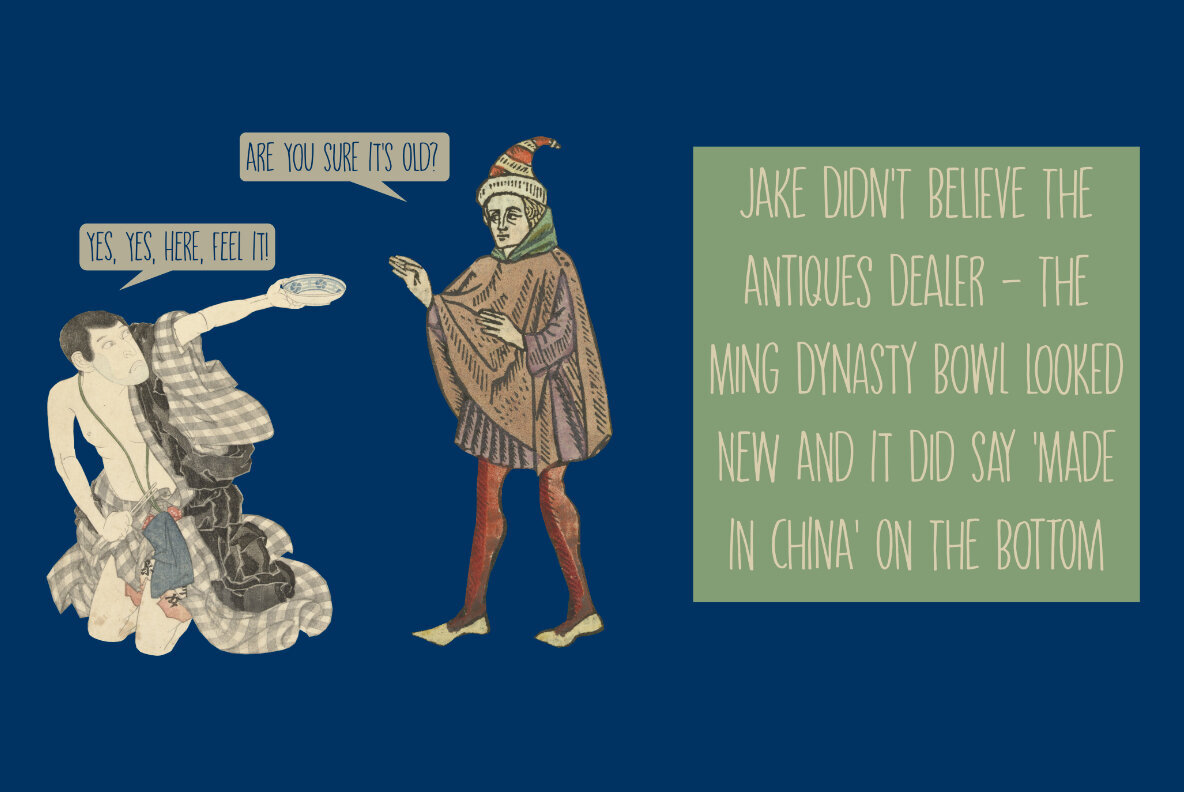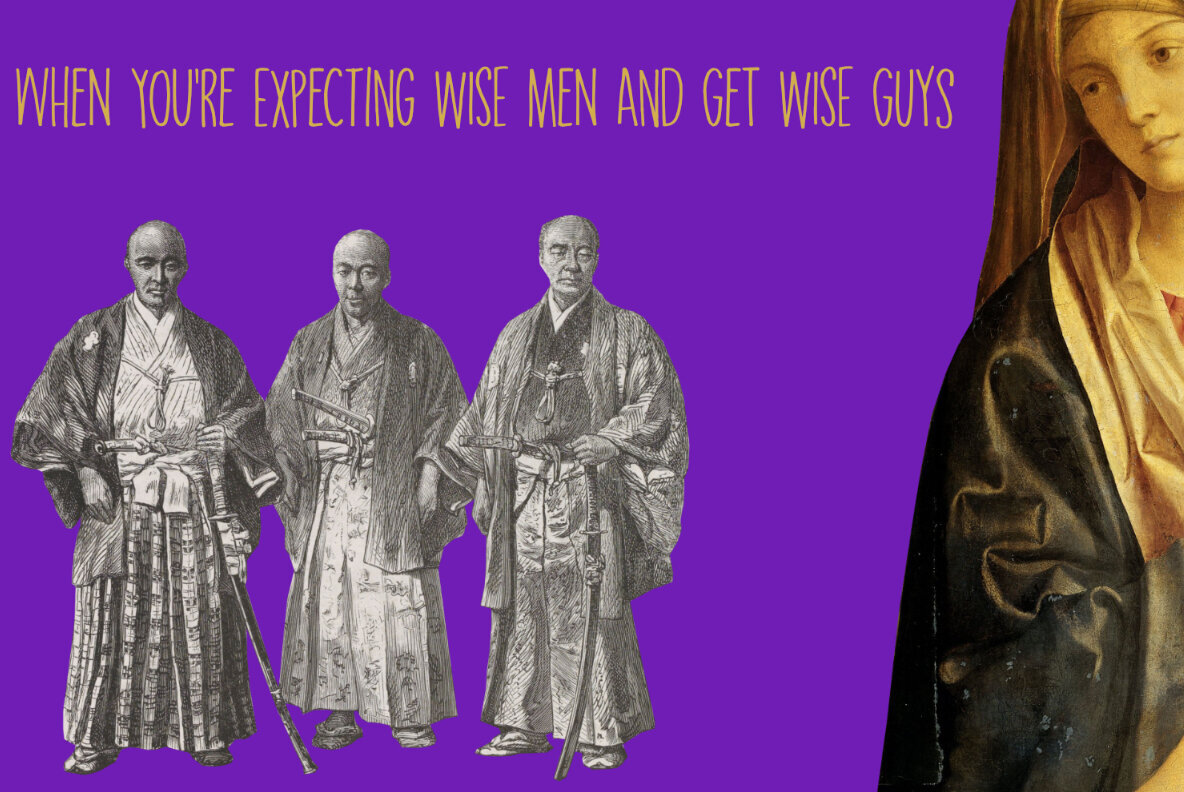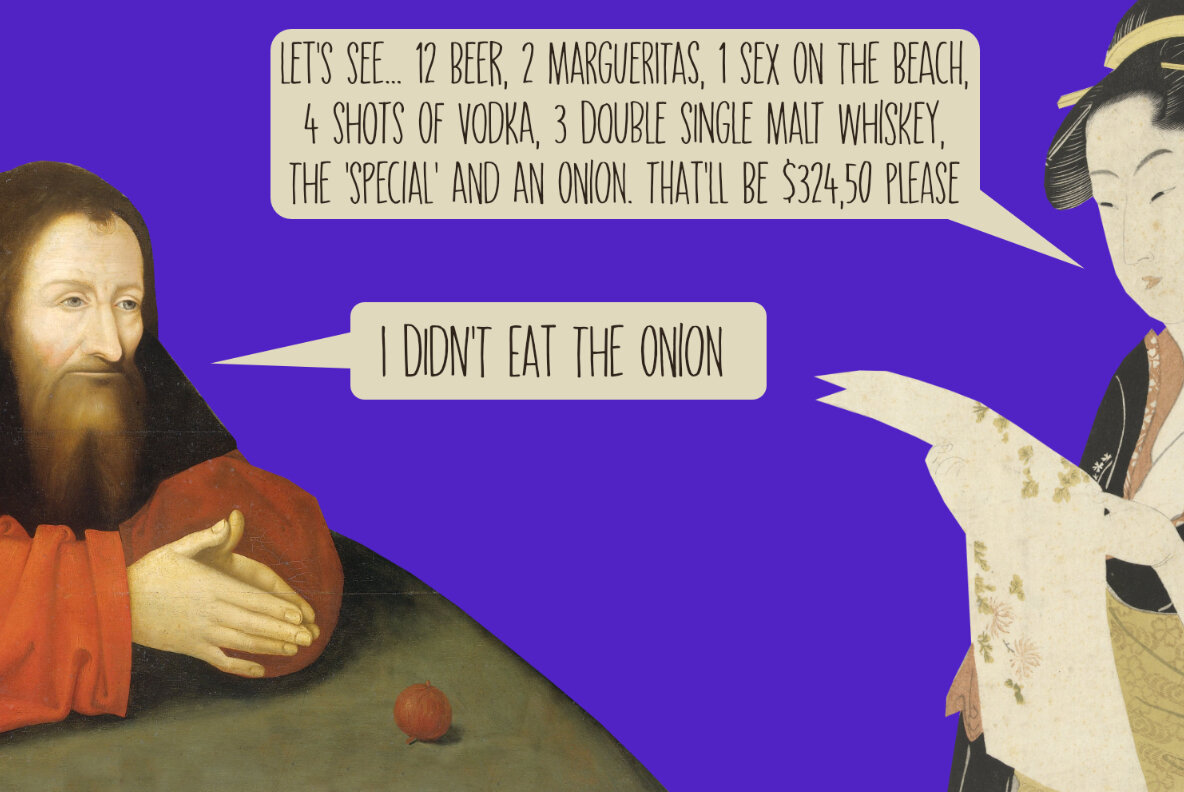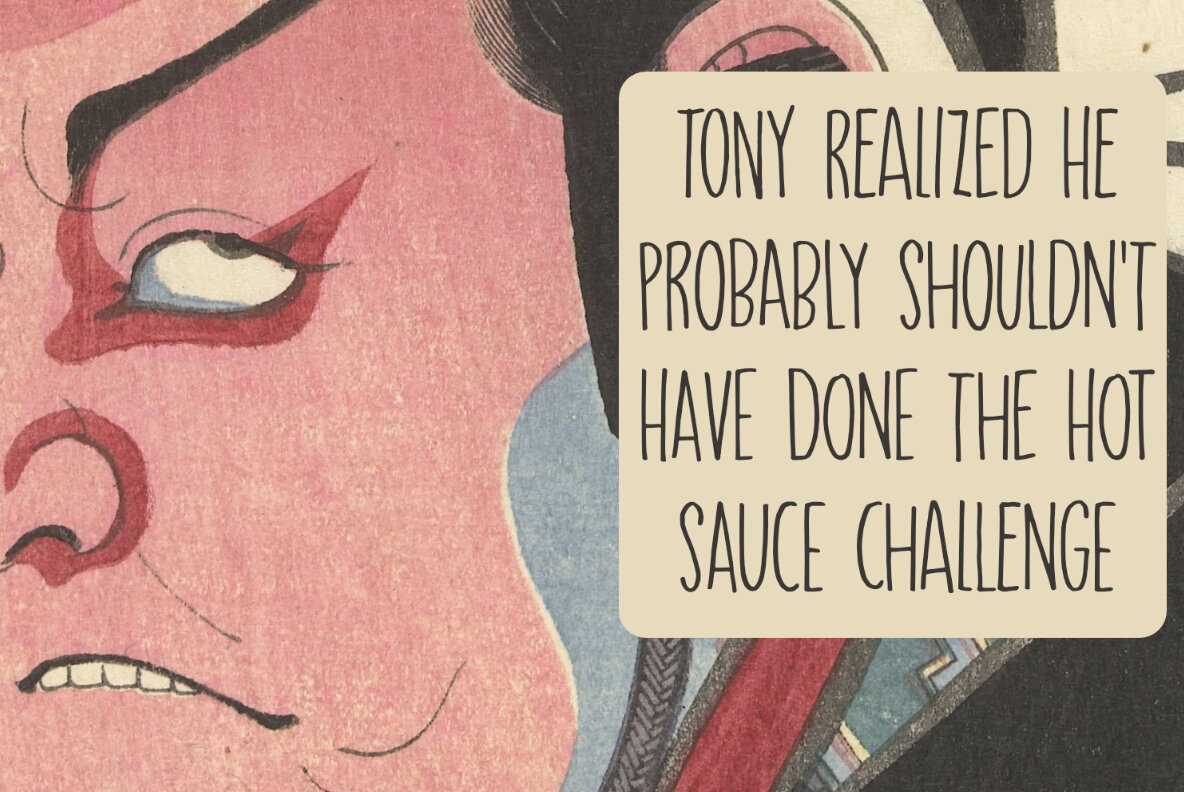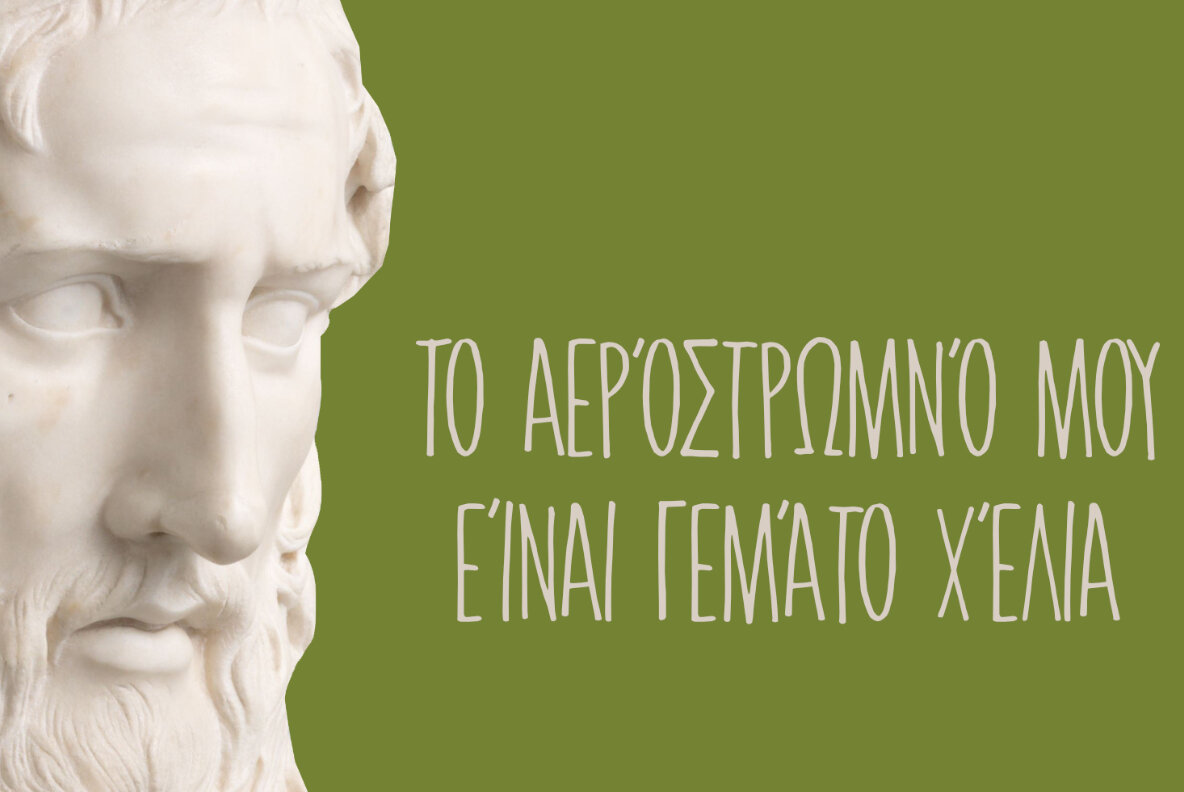
Take The Money Font
Take The Money is a wonky all caps font, made with a Sharpie pen. The name was inspired by something I read in the newspaper: apparently a Danish artist received €72.000 from a museum to create two works of art. The works of art should depict the average income of someone from Austria and someone from Denmark - in real money. The museum then loaned him the €72.000 and told him he'd receive €3.300 for his work. The artist decided that €3.300 would merely cover the costs, so he delivered two empty canvases and called the work: Take The Money And Run.
Take The Money font comes with 2 sets of automatic alternates and some serious language support, including Vietnamese and Greek